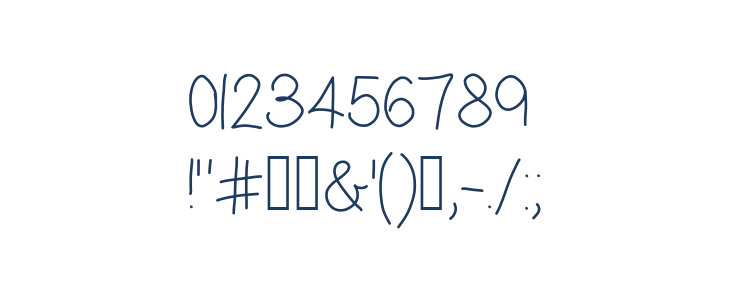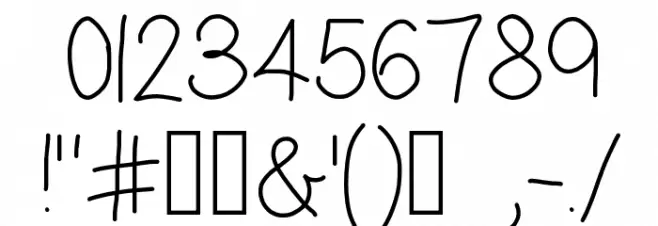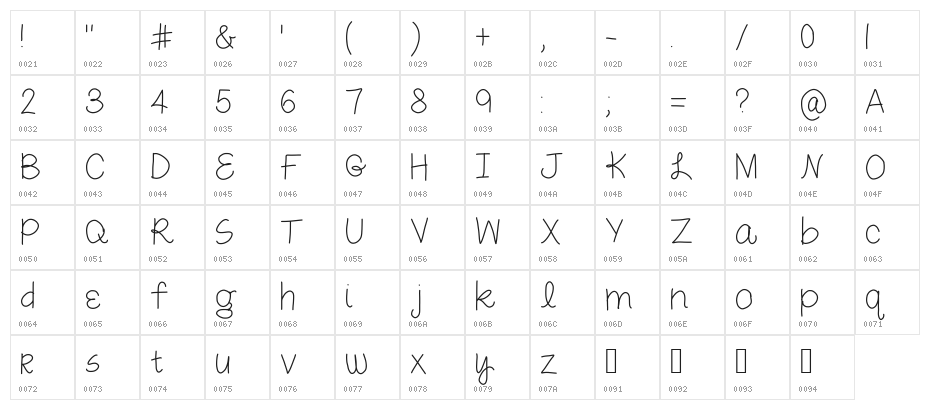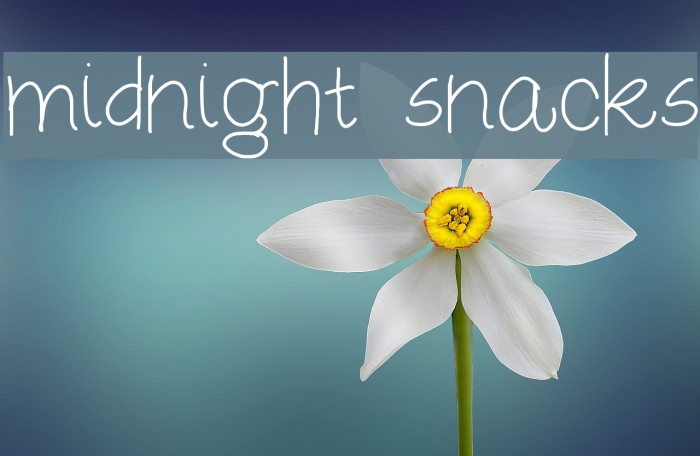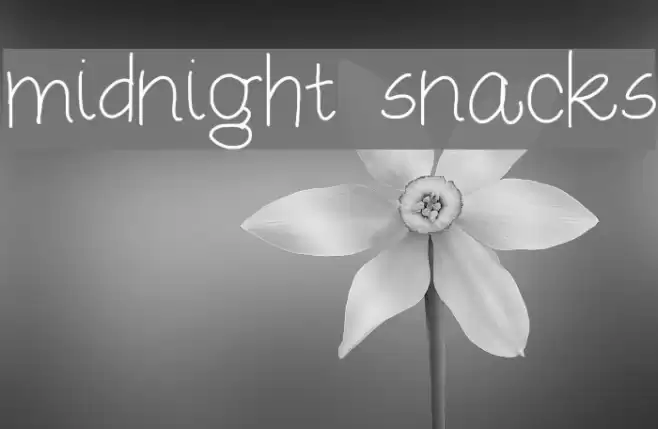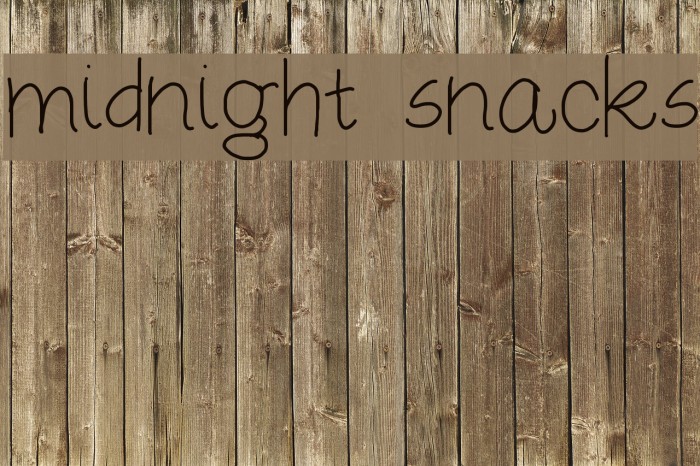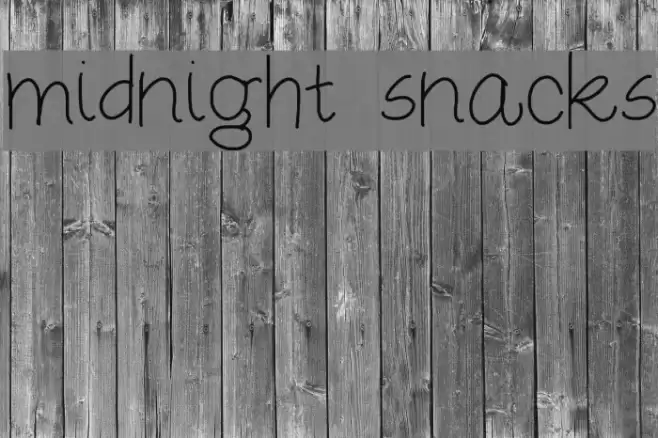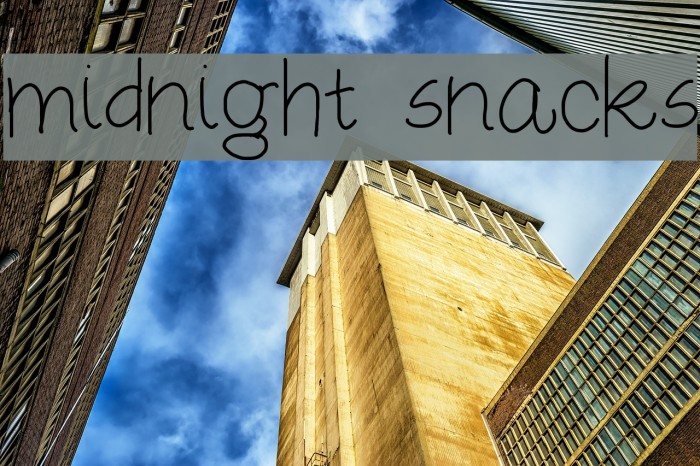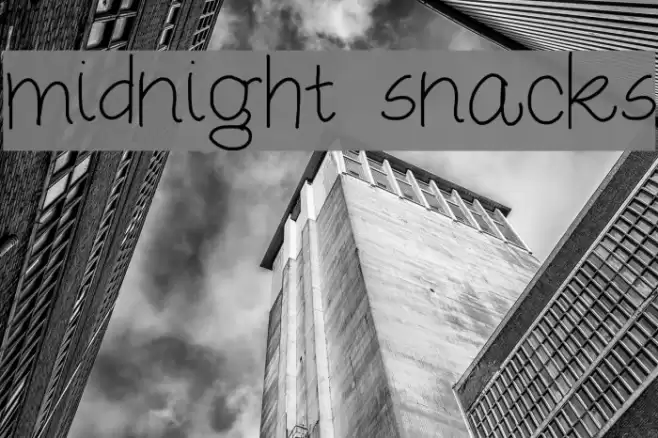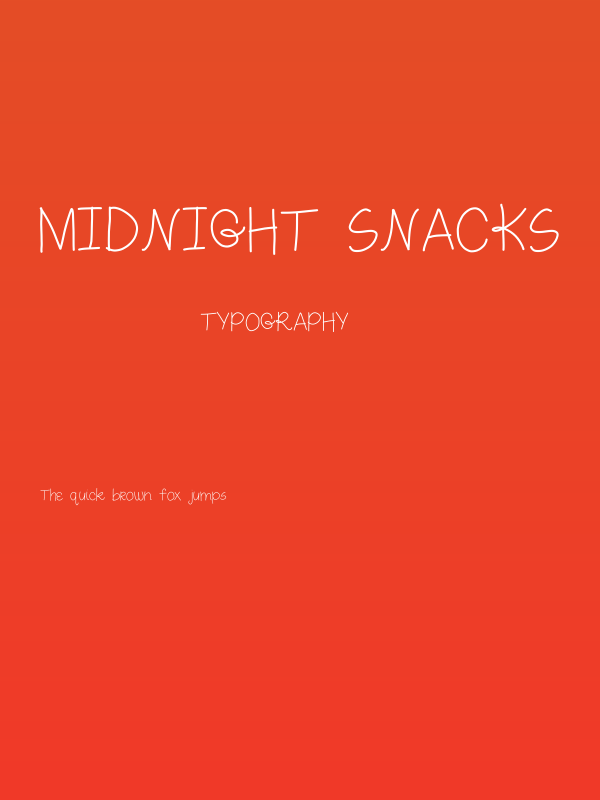
midnight snacks Font
midnight snacks Description
This playful and whimsical font features a handwritten style with a casual and friendly appearance. The characters are slightly irregular, giving it an authentic, personal touch. The uppercase letters are tall and narrow, while the lowercase letters maintain a consistent height, creating a harmonious balance. The numbers and special characters follow the same playful design, making the font versatile for various creative projects. The strokes are smooth and rounded, contributing to its approachable and informal vibe.
| Proposed Projects | Ideal for greeting cards, children's books, playful branding, and casual invitations. |